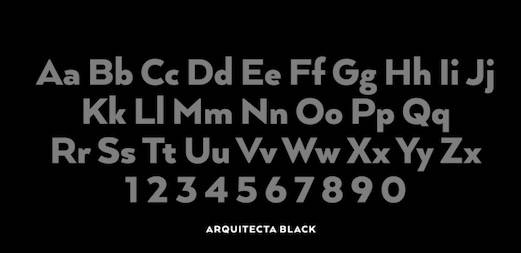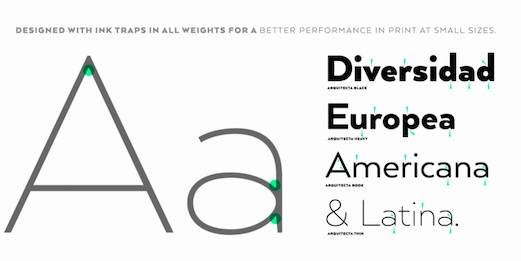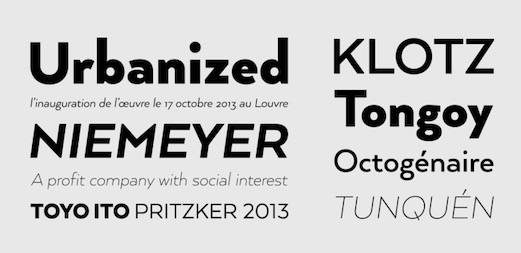
by Latinotype
Arquitecta font is a modern Sans Serif typeface which was designed and published by Miguel Hernández and Daniel Hernández in 2013. This Sans font includes eight upright Romans and eight italics.
It is a humanist typeface with a rational project and is suitable for text layout and continuous reading. This font is inspired by American & European hand lettering from the first half of the 20 century, This Sans font finds its own space as a perfect alternative for paragraphs in front of classics such as Avant-Garde, Kabel, or Futura.
Arquitecta font family has come with unique sixteen styles and was published by Latinotype. And as we can feel from this Arquitecta font, the deep humanity is reflected in the rationality of the texture of each character stroke. With 16 exclusive styles including 8 italic and 8 unique Romanesque fonts, it’s sure to give its own space with great alternatives to each of your favorite designs.